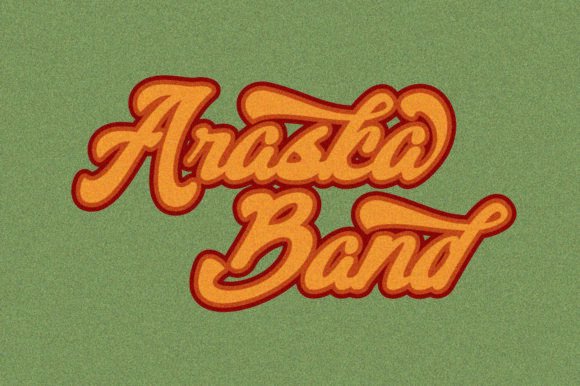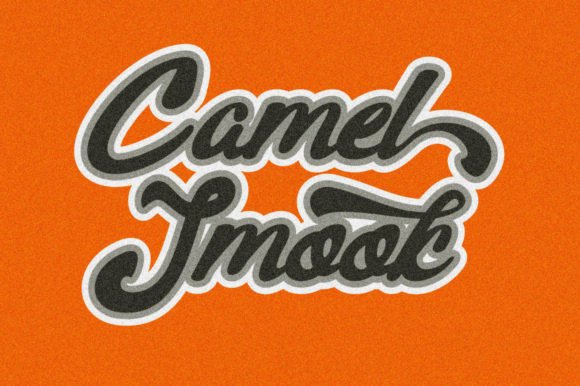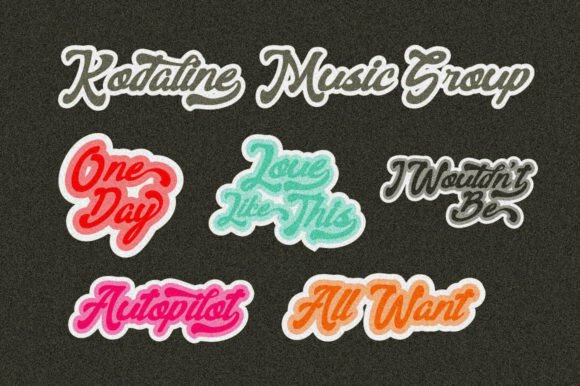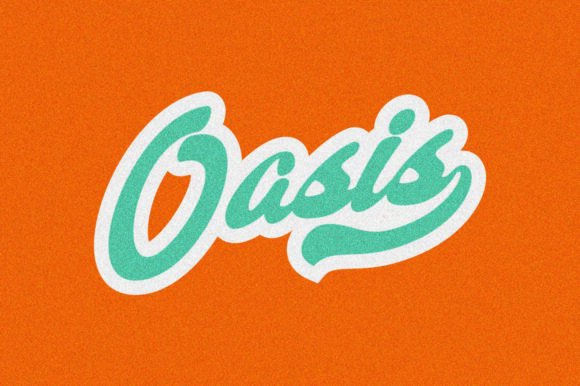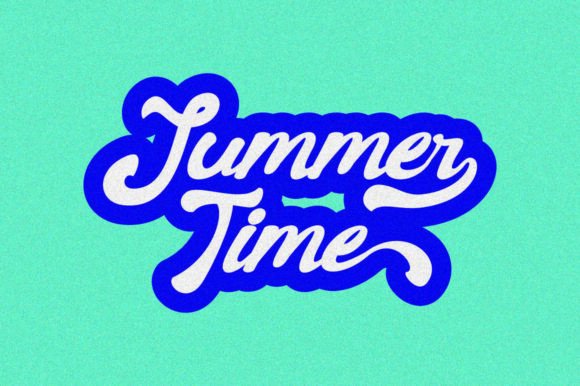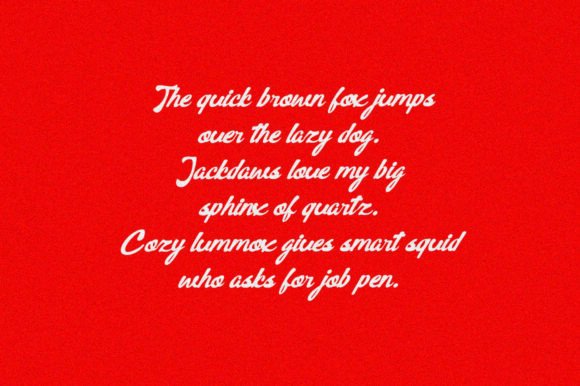
First Impressions: A Beautifully Crafted Script Font
The Bandana Script Font is a beautifully crafted script font that exudes elegance and sophistication. Designed with smooth, flowing curves and graceful strokes, it brings a sense of charm and warmth to any design. Its hand-lettered style makes it perfect for branding, invitations, logos, packaging, and more.
What I Love About Bandana Script Font
- ✨ Elegant and sophisticated: Bandana’s smooth curves and flowing strokes make it perfect for formal and informal designs.
- ✅ Versatile: This script font features a perfect balance between modern calligraphy and classic cursive, making it suitable for various design projects.
- 💫 Natural handwritten touch: The carefully designed ligatures and alternates add a natural, handwritten touch, enhancing its aesthetic appeal.
- 🎨 Perfect for creative projects: Bandana is ideal for designers, crafters, and creative hobbyists looking for a stylish and timeless typeface.
While the Bandana Script Font is an excellent choice for many design projects, there are a few things to keep in mind:
- 🤔 Limited use in body text: Due to its script nature, Bandana may not be the best choice for lengthy body text. It’s better suited for headings, titles, and short paragraphs.
- ⚠️ Requires attention to spacing: As with any script font, it’s essential to pay attention to spacing to ensure the text flows smoothly.
The Story Behind Bandana Script Font
The Bandana Script Font was designed by a team of typographers who aimed to create a font that would bring a sense of elegance and sophistication to any design. Inspired by traditional calligraphy and modern script fonts, they carefully crafted each letter to ensure a smooth, flowing feel. The result is a beautiful, versatile font that’s perfect for a wide range of design projects.
Q: What is the Bandana Script Font?
A: The Bandana Script Font is a beautifully crafted script font designed for elegant and sophisticated designs.
Q: Is the Bandana Script Font suitable for body text?
A: While the Bandana Script Font is an excellent choice for headings and titles, it may not be the best choice for lengthy body text due to its script nature.